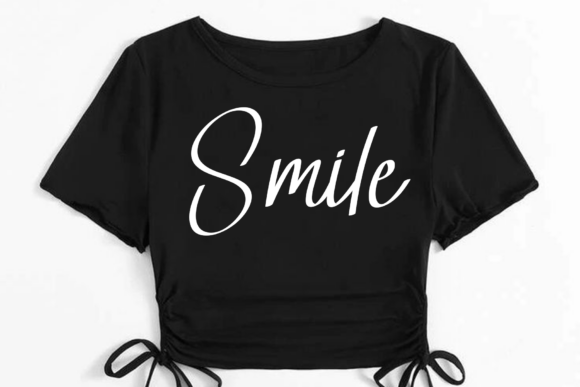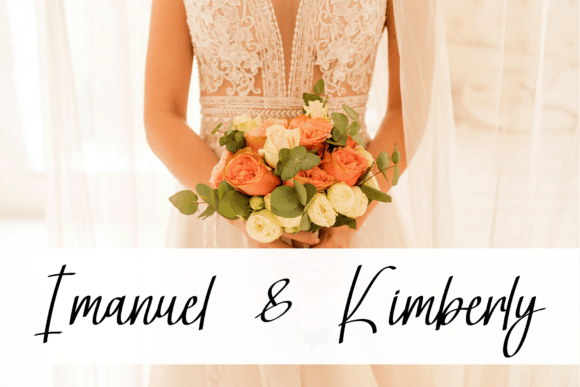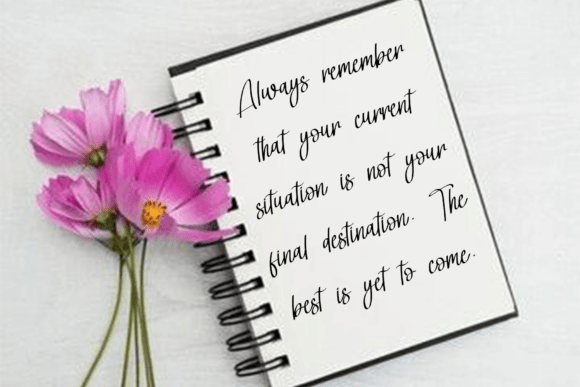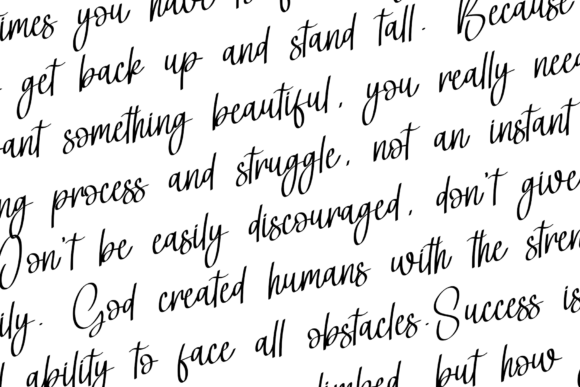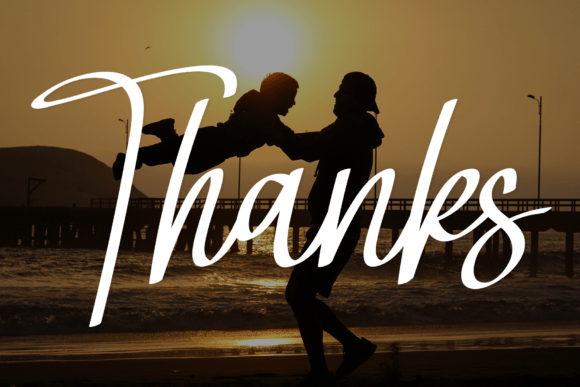
Introducing Father Font: The Epitome of Elegance and Sophistication
In the realm of typography, few fonts manage to convey the essence of luxury and sophistication as effortlessly as Father Font. This elegant and fluid handwritten script font has been meticulously crafted to embody the spirit of modern refinement, making it an ideal choice for a variety of high-end applications. From luxury wedding stationery to intimate event branding, high-end editorial signatures, and sophisticated lifestyle photography overlays, Father Font is the perfect companion for designers and crafters seeking to elevate their creations.
The Design Philosophy Behind Father Font
Father Font’s design is rooted in the pursuit of elegance and fluidity. Each letter has been carefully handcrafted to ensure a seamless flow and connection, reminiscent of traditional calligraphy but with a distinctly modern twist. The font’s creator aimed to produce a typeface that not only exudes luxury and sophistication but also brings a sense of warmth and personality to the projects it is used in. This balance of refinement and approachability makes Father Font versatile and highly adaptable across various design contexts.
Key Features of Father Font
- Elegant and Fluid Design: Father Font boasts a smooth, connected script that adds a touch of class and sophistication to any design.
- High Versatility: Its adaptability makes it suitable for a wide range of applications, from digital platforms to print materials.
- Easy to Read: Despite its elegant nature, Father Font maintains a high level of legibility, ensuring that messages are conveyed clearly and effectively.
- Extensive Character Set: The font includes a comprehensive range of characters, allowing for the creation of detailed and nuanced text.
Applications of Father Font
Father Font’s unique blend of elegance and approachability lends itself to a variety of uses, including:
Luxury Wedding Stationery
For couples looking to add a touch of sophistication to their wedding stationery, Father Font offers a beautiful and refined solution. Its elegant lines and fluid connections make it perfect for wedding invitations, save-the-date cards, and thank-you notes.
Intimate Event Branding
Father Font can add a level of luxury and intimacy to event branding, making it ideal for corporate gatherings, galas, and other high-end events. Its sophisticated appearance helps create a lasting impression on attendees.
High-End Editorial Signatures
In the world of editorial design, a distinctive font can make all the difference. Father Font’s unique charm and elegance make it an excellent choice for adding signatures to articles, editorials, and publications, offering a personal touch that elevates the content.
Sophisticated Lifestyle Photography Overlays
For lifestyle photographers and influencers, Father Font provides a stylish solution for adding text overlays to photos. Its modern and refined appearance complements a wide range of images, from fashion and beauty shots to travel and lifestyle captures.
Father Font stands out as a premier choice for designers and crafters seeking to infuse their projects with a sense of luxury, elegance, and sophistication. Its fluid design, versatility, and readability make it an invaluable asset in the world of typography. Whether you’re working on luxury wedding stationery, intimate event branding, high-end editorial signatures, or sophisticated lifestyle photography overlays, Father Font is poised to elevate your creations to new heights of refinement and style.
Embracing Father Font is not just about selecting a typeface; it’s about making a statement of elegance and sophistication that resonates with your audience. Experience the difference that a meticulously crafted font can make in your designs, and let Father Font guide you towards creating visually stunning and impactful projects.